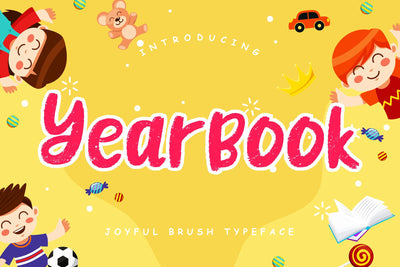
Yearbook Joyful Brush Typeface
Yearbook is joyful display font which suitable to use for children related event.
Yearbook is perfect for branding projects, logo, wedding designs, social media posts, advertisements, product packaging, product designs, label, photography, watermark, invitation, stationery and any projects that need handwriting taste.
- Ligature
- Fonts include multilingual support for; ä ö ü Ä Ö Ü ß ¿ ¡